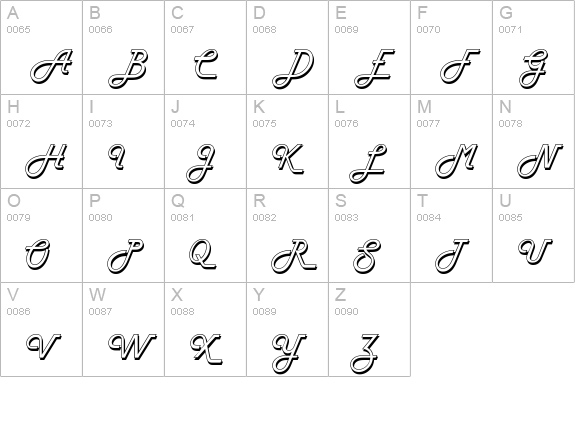
HarlowD Font Details
Introducing HarlowD, a captivating and versatile font that will leave a lasting impression on any design project. With its unique blend of elegance and modernity, HarlowD is the perfect choice for those seeking a font that effortlessly combines sophistication and creativity. This font boasts a wide range of stylistic elements, making it suitable for a variety of design purposes. Whether you're working on a logo, branding materials, invitations, or even a website, HarlowD will elevate your project to new heights. Its clean lines and balanced spacing create a sense of harmony, while its subtle curves and unique letterforms add a touch of intrigue. One of the most remarkable aspects of HarlowD is that it is absolutely free. That's right, you can now freely download this extraordinary font at FontsMarket.com. This means that you can enjoy the benefits of HarlowD without having to spend a dime, making it even more appealing for designers on a budget or those who simply love high-quality fonts at no cost. HarlowD's versatility is further enhanced by its extensive character set, which includes uppercase and lowercase letters, numerals, punctuation, and multilingual support. This means that you can confidently use HarlowD in projects targeting different languages and cultures, without any limitations. Whether you're a professional designer or someone who simply enjoys experimenting with typography, HarlowD is a must-have addition to your font collection. Its timeless appeal and wide range of applications make it an invaluable resource that you'll find yourself turning to time and time again. So why wait? Discover the beauty and flexibility of HarlowD today by downloading it for free at FontsMarket.com. Unleash your creativity and let this remarkable font transform your designs into works of art.